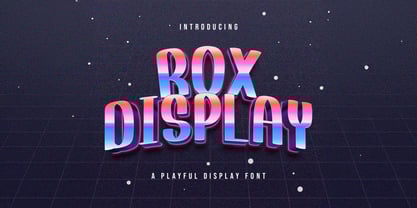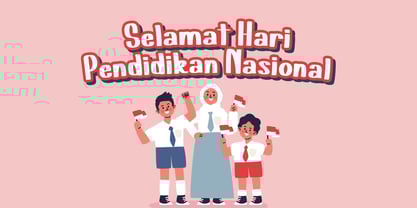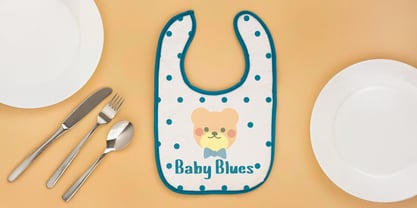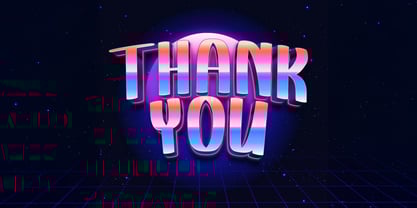
The Rox Display Font Family was designed by Virgiawan Listanto and published by Stringlabs Creative Studio. Rox Display contains 1 styles.
Rox Display is a fun, bold, and bubbly display font designed to bring joy and personality to any project. With its playful shapes and cheerful vibe, this font is perfect for creative designs that aim to grab attention and make people smile.
Rox Display